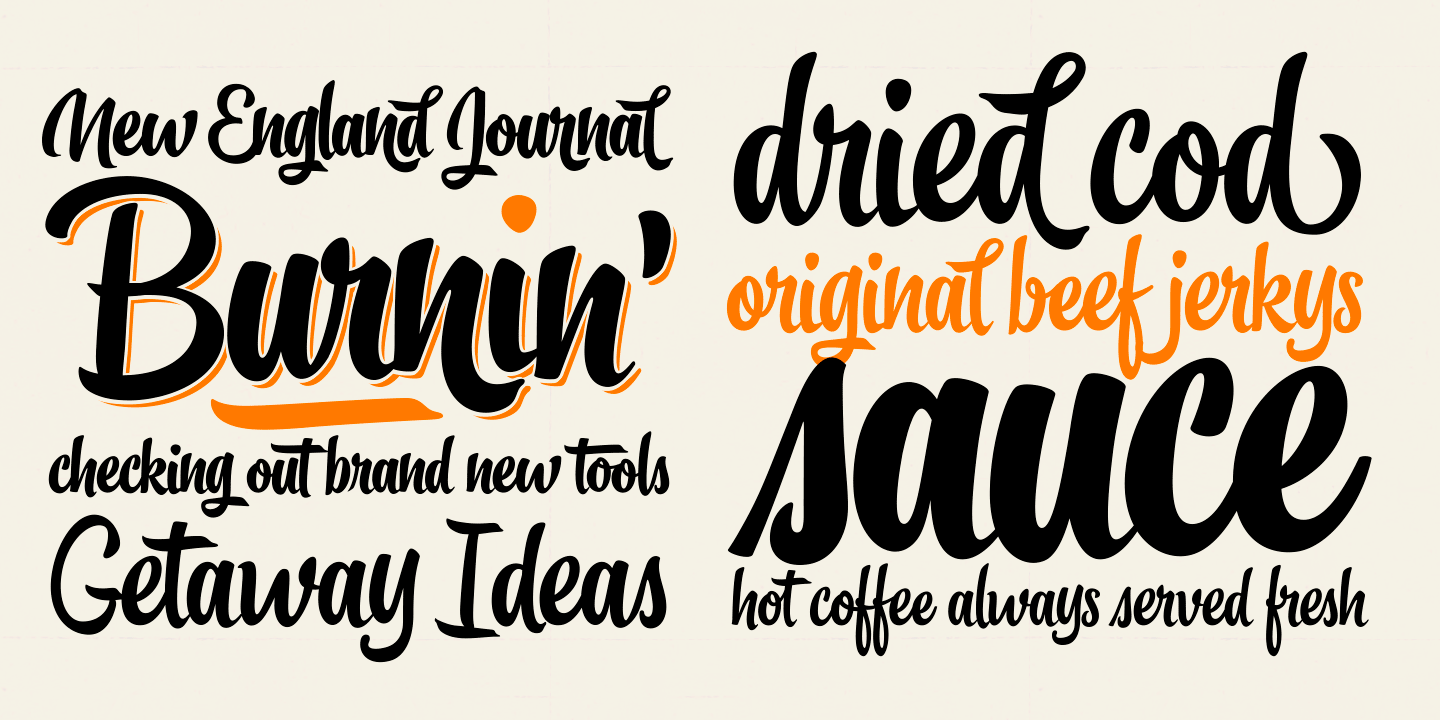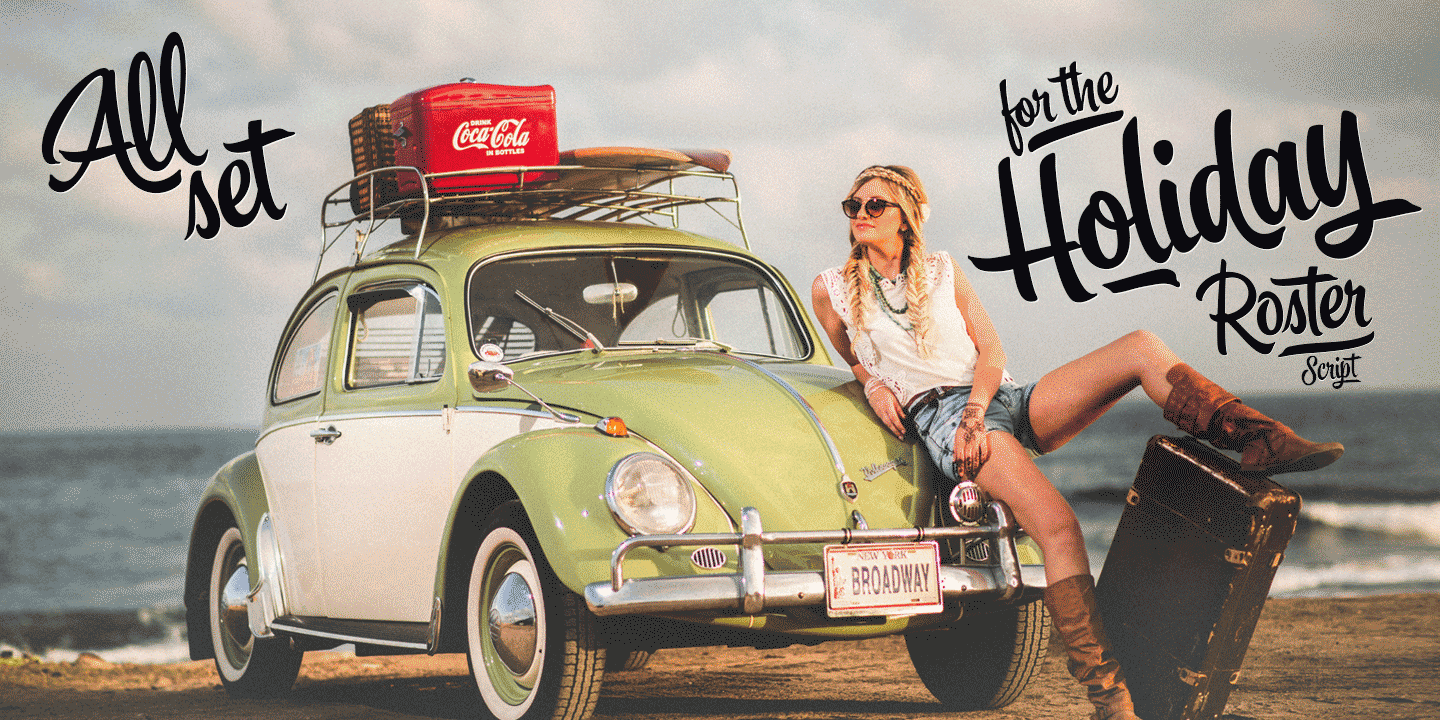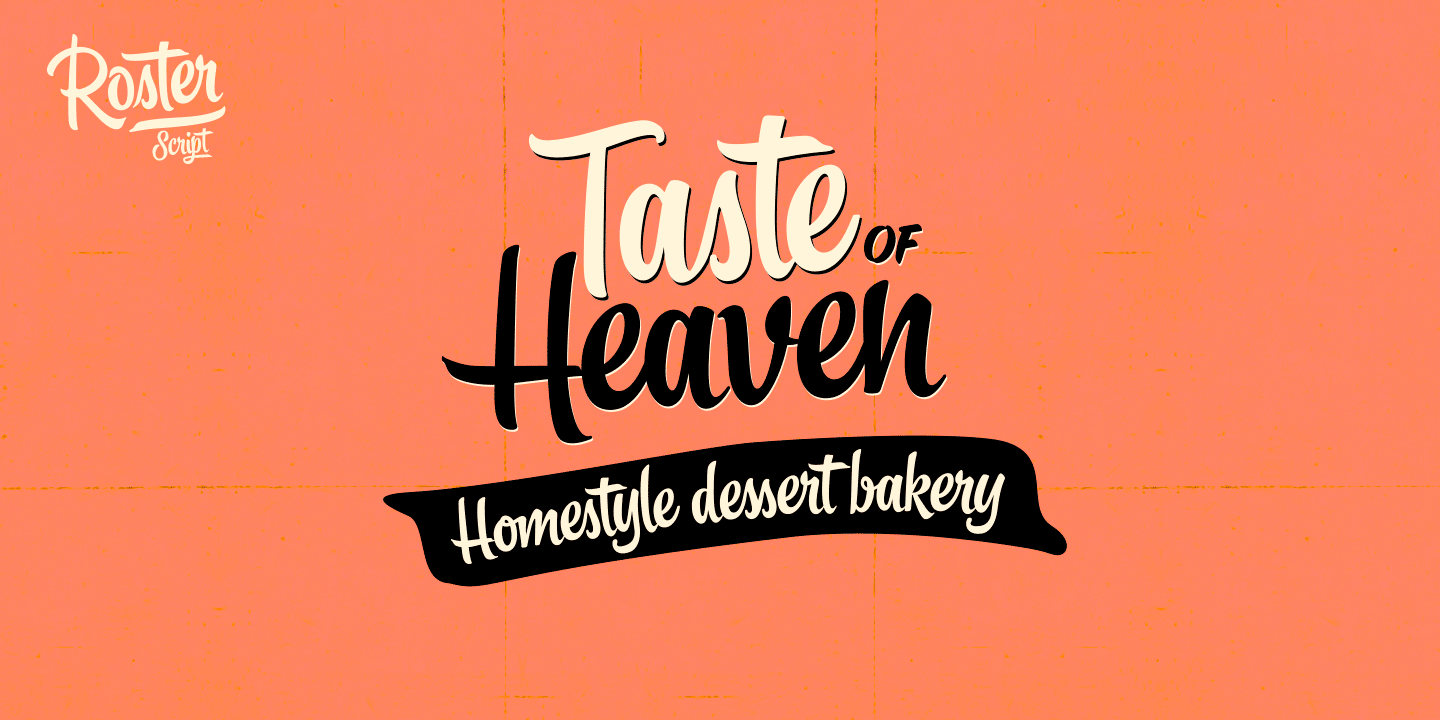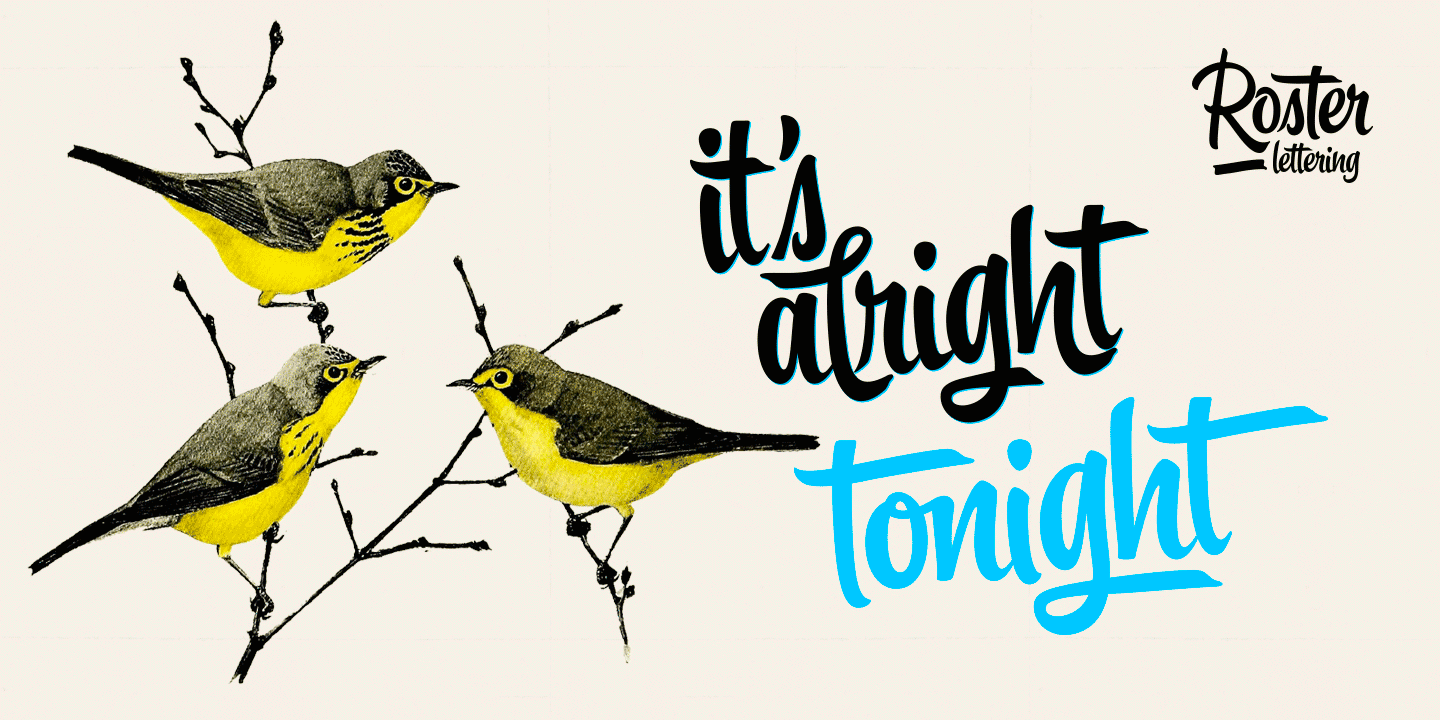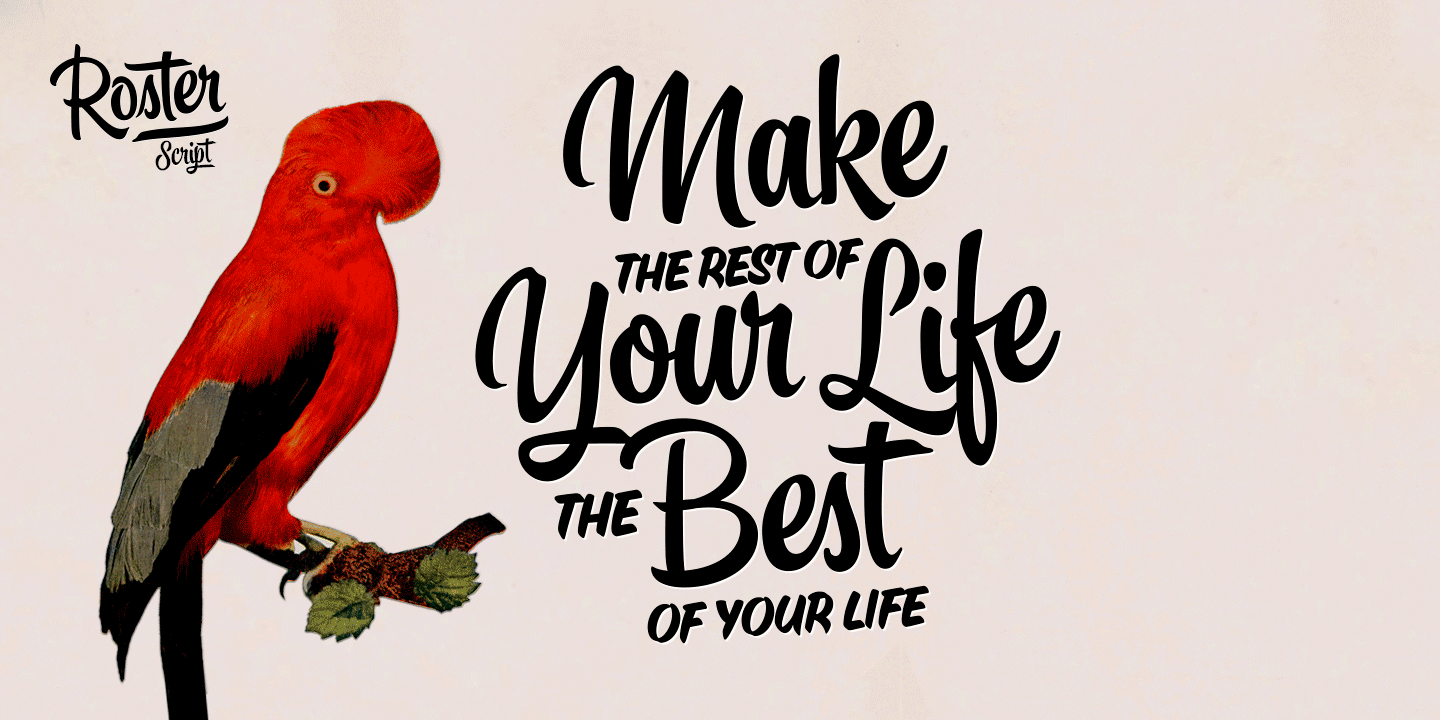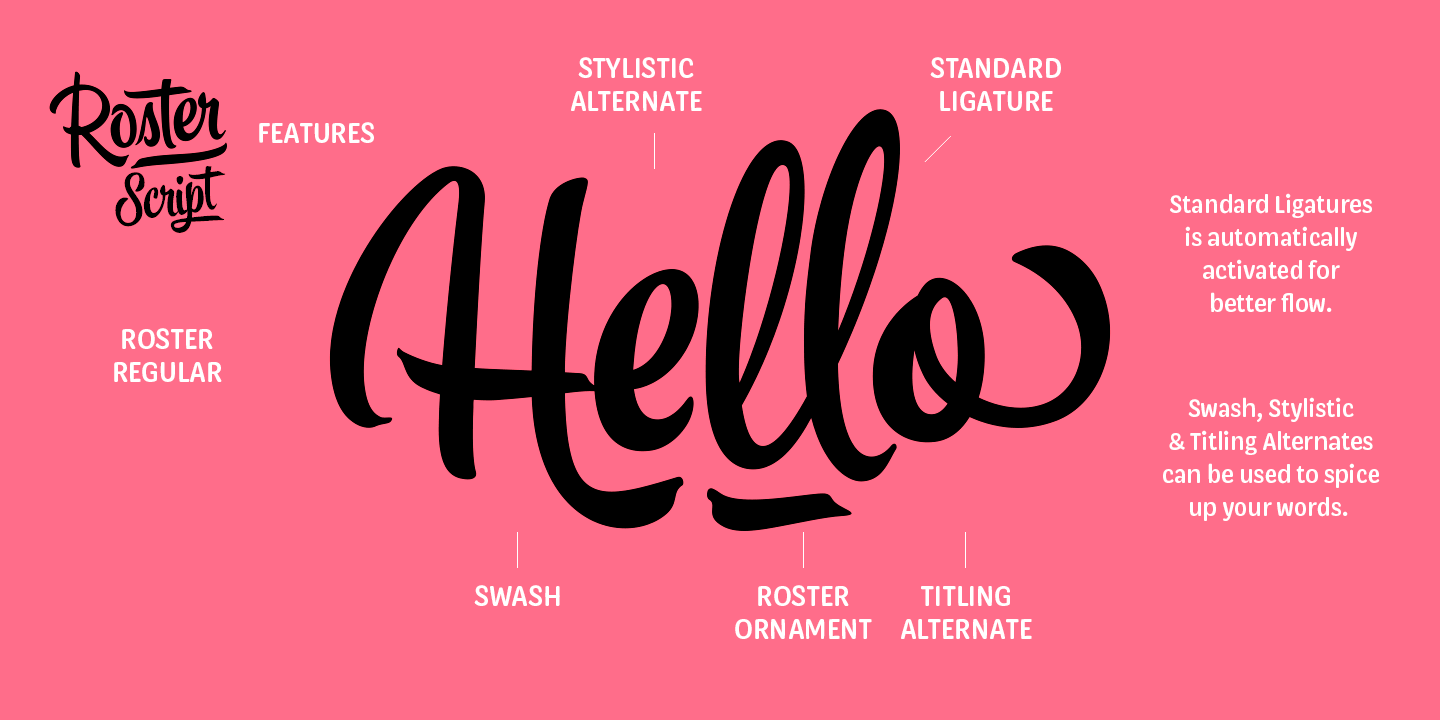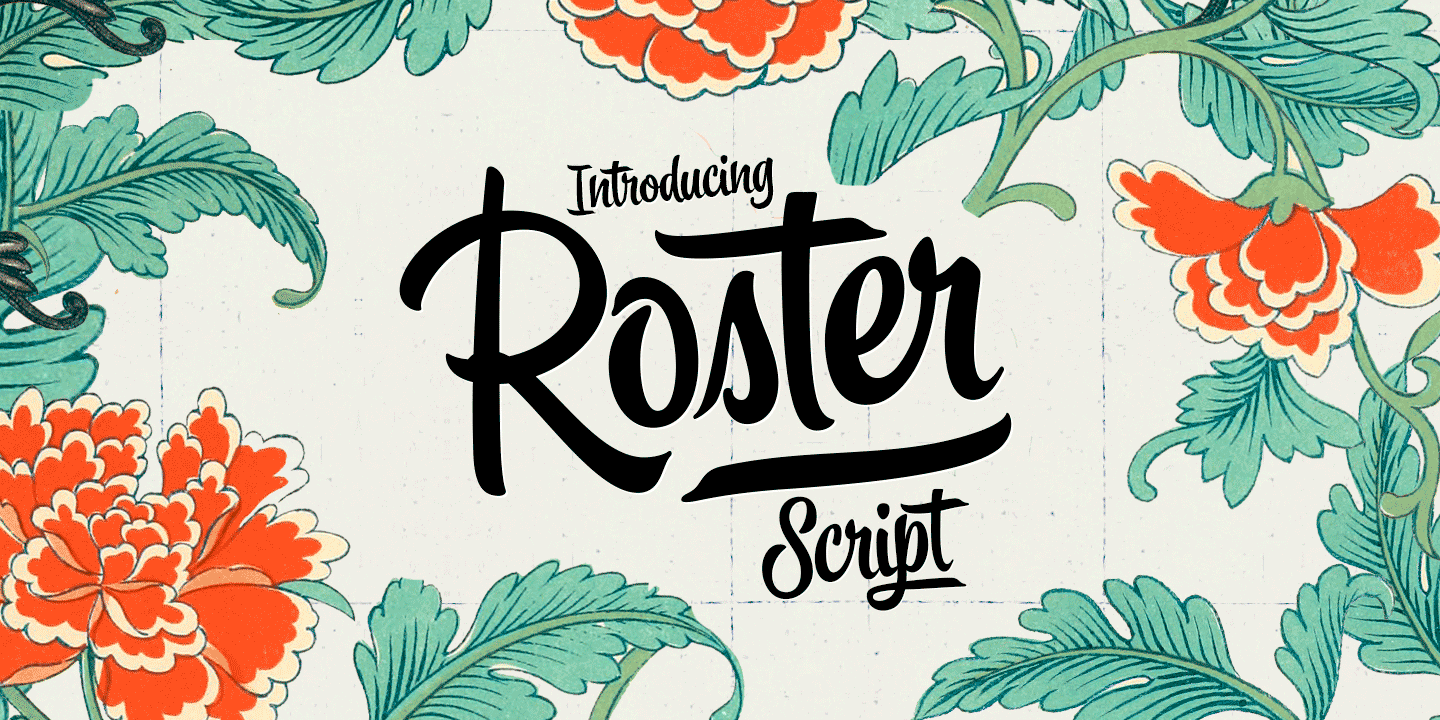
Roster
About Roster
Roster is a strong brush script family of two weights, caps and a set of ornaments. Roster is great for any kind display use from advertising to packaging and from online to branding. Roster is clear and legible even in smaller sizes and works for longer…